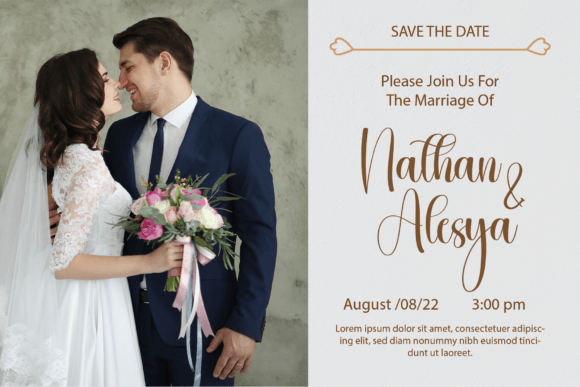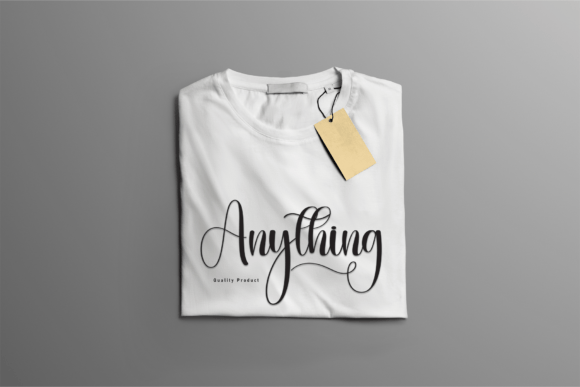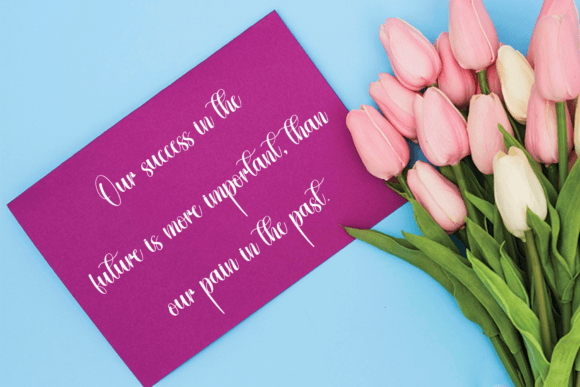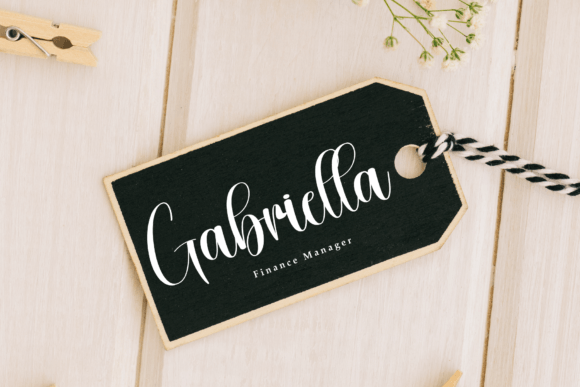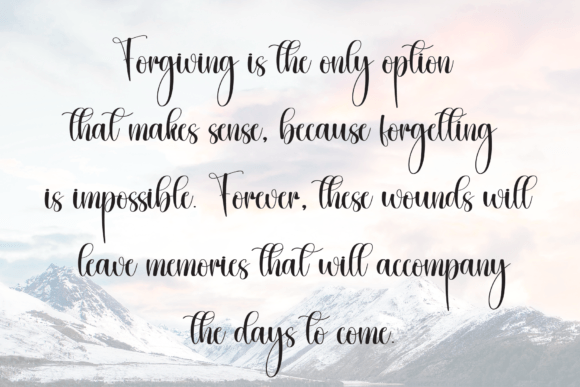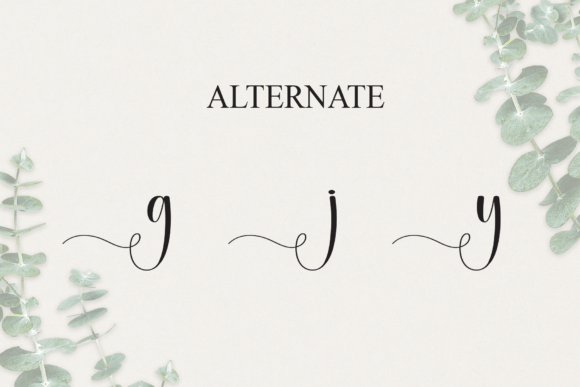
Introducing Always Font: Elevate Your Designs with Elegance and Sophistication
In the world of typography, few fonts manage to convey the perfect blend of style, elegance, and versatility. Always Font is one such gem that has captured the hearts of designers and crafters alike. This stunning script font is designed to add a touch of sophistication and whimsy to a wide range of design projects, from wedding invitations and thank you cards to quotes, greeting cards, logos, business cards, and more.
The Essence of Always Font
Always Font is a beautifully crafted script font that exudes elegance and refinement. Its flowing lines, delicate strokes, and intricate details make it an ideal choice for designs that require a personal and human touch. Whether you’re looking to create a romantic wedding invitation, a heartfelt thank you card, or a stylish logo, Always Font is sure to impress.
Key Features of Always Font
- Stylish and Elegant: Always Font boasts a sophisticated and refined aesthetic that adds a touch of luxury to any design.
- Versatile: This font is perfect for a wide range of design projects, including wedding invitations, thank you cards, quotes, greeting cards, logos, business cards, and more.
- Handwritten Touch: Always Font features a beautiful, handwritten script that adds a personal and human touch to your designs.
- Easily Readable: Despite its elegant and cursive nature, Always Font remains easily readable, making it perfect for both digital and print designs.
Design Ideas with Always Font
Always Font is an incredibly versatile font that can be used in a multitude of design projects. Here are some ideas to get you started:
- Wedding Invitations: Create stunning wedding invitations that set the tone for a beautiful and elegant wedding celebration.
- Thank You Cards: Express your gratitude with beautifully designed thank you cards that feature Always Font.
- Quotes and Posters: Add a touch of elegance to your inspirational quotes and posters with Always Font.
- Greeting Cards: Create heartfelt greeting cards for special occasions, such as birthdays, anniversaries, and holidays.
- Logos and Branding: Use Always Font to create a stylish and sophisticated logo that reflects your brand’s personality.
- Business Cards: Elevate your business cards with a touch of elegance and professionalism.
Tips for Using Always Font
To get the most out of Always Font, here are some tips to keep in mind:
- Pair with Complementary Fonts: Always Font pairs beautifully with clean and simple fonts, such as sans-serif fonts.
- Experiment with Colors: Try pairing Always Font with different colors to create a unique and eye-catching design.
- Use for Headings and Titles: Always Font is perfect for headings and titles, adding a touch of elegance and sophistication to your designs.
Always Font is a truly special font that offers a unique blend of style, elegance, and versatility. Whether you’re a designer, crafter, or DIY enthusiast, this font is sure to become a favorite in your collection. With its beautiful script and flowing lines, Always Font is perfect for adding a touch of sophistication and whimsy to a wide range of design projects. So why wait? Get creative with Always Font today and elevate your designs to new heights!